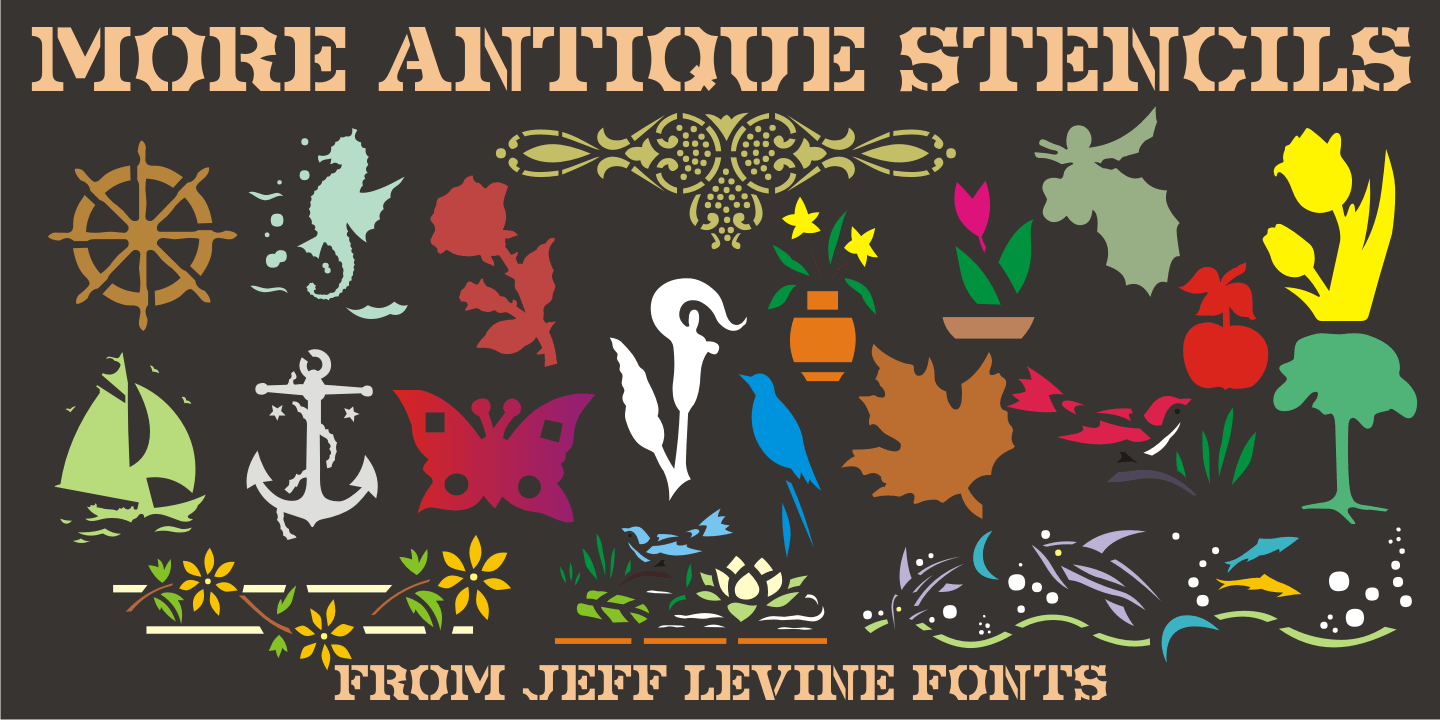
More Antique Stencils
More Antique Stencils JNL is another collection of wonderful decorative stencil designs from antique sources. Included in this font are floral, bird and nautical motifs in both singular and border designs as well as an ornate embellishment.
This font is a companion to Antique Stencils JNL.
More Antique Stencils by Jeff Levine Fonts